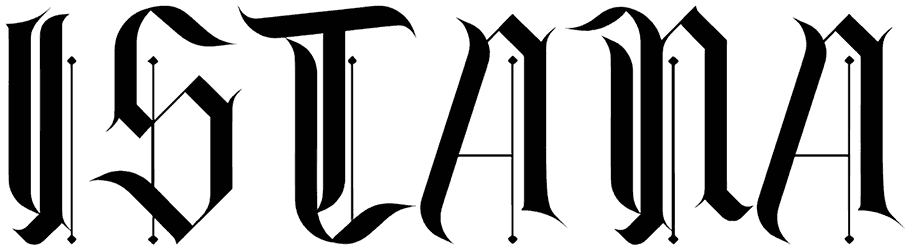
Riemann Theatre Font
Riemann Theatre gives a cool and vintage look to your texts. It is considered to be a retro font and its characters start thick and end in thin lines. You can use this luxury sans serif font to write retro and club signs, fancy headlines, mystery puzzles, drama movie and book titles, and channel and page banners. All the letters are capitalized.
Designed by: Chequered Ink